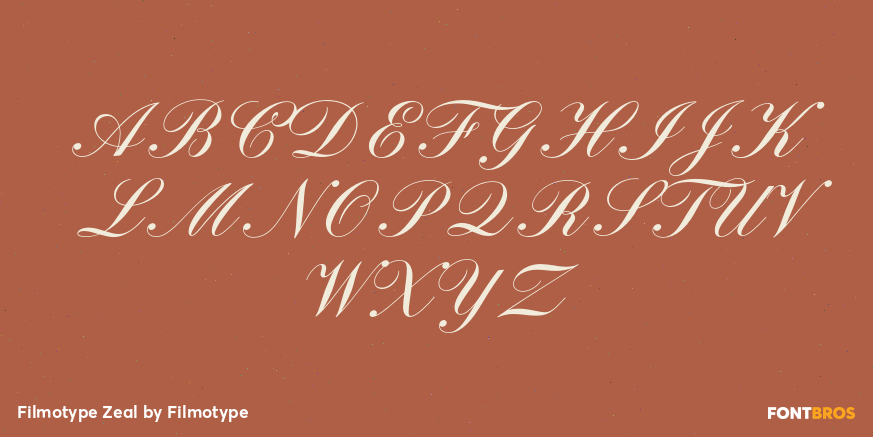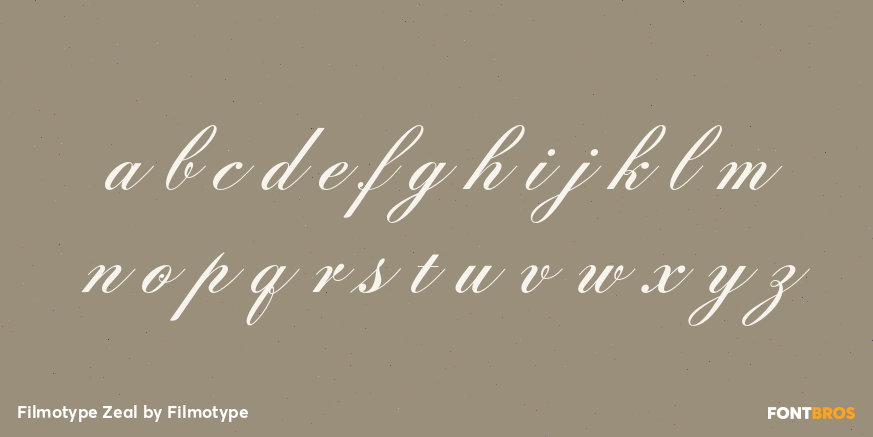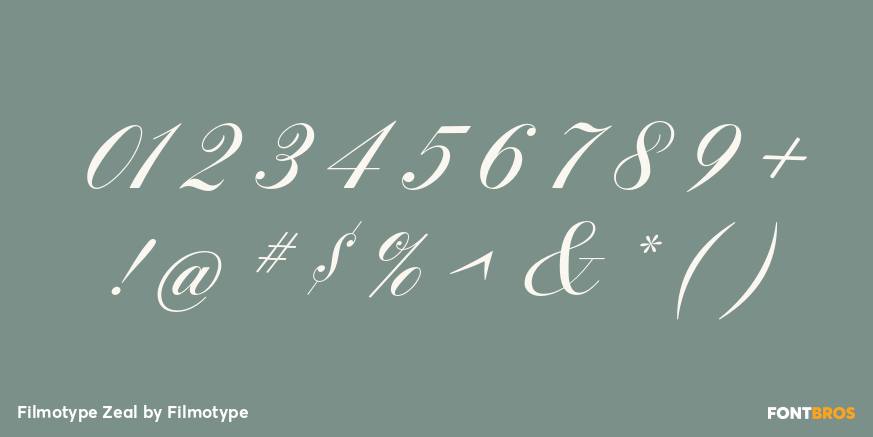
Filmotype Zeal
Filmotype Zeal is a historical formal script with a classic, expressive look that feels rooted in vintage lettering traditions. Its flowing shapes and refined rhythm give it a decorative, period-minded presence that stands out in display settings.
Offered as a single font style from Filmotype, this design is well suited to projects that call for character and elegance rather than neutrality. Think packaging, poster work, signage, invitations, and branding that wants a distinctly old-world or nostalgic tone.
For designers drawn to formal scripts with a historical slant, this face brings personality without losing its sense of polish. It is an easy choice for headlines and other prominent typography where a graceful, stylized voice can do the heavy lifting.